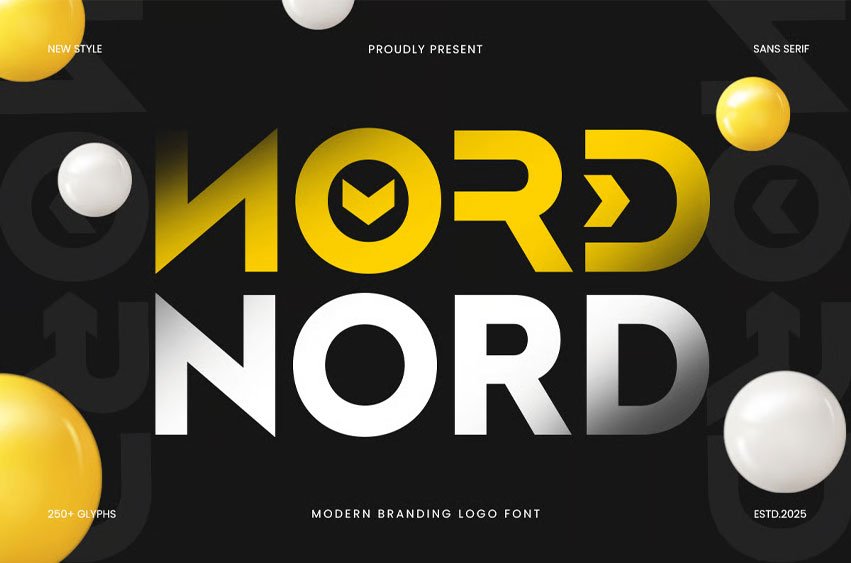
Nord Logo Font is a modern branding logo font designed to bring sophistication, clarity, and a contemporary edge to your design projects. Its sleek and balanced letterforms make it ideal for logos, corporate branding, and creative designs where a polished, modern aesthetic is essential.
Perfect for building brand identities, digital products, or print materials, NORD offers a professional look that stands out with subtle elegance. Its minimalist yet versatile style ensures it fits seamlessly into a wide range of modern design contexts.
NORD – Modern Branding Logo Font Features
- Sleek and modern letterforms are ideal for branding and logos
- Ready with Regular and Bold versions for Perfect Results
- Clean, minimal, and professional design
- Includes uppercase, lowercase, numerals, and punctuation
- Versatile style suitable for digital and print projects
- OpenType features for flexible typographic control
Elevate your brand identity with NORD – the perfect font for modern, clean, and professional logos.